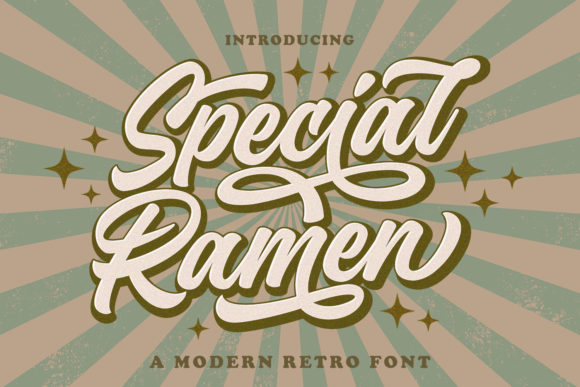
Welcome to the world of typography, where letters dance across the screen, each stroke a brushstroke of elegance. Immerse yourself in the retro charm of Special Ramen, a font inspired by the timeless aesthetic of classic menus. Its bold, sweeping curves evoke the nostalgia of handwritten signs, inviting you on a journey through the past.
Special Ramen is a masterclass in simplicity, combining bold lines with delicate flourishes to create a font that is both eye-catching and legible. Its unpretentious nature makes it perfect for a wide range of projects, from branding and logos to posters and packaging. Unleash your creativity and experience the magic of Special Ramen, a font that will turn your designs into timeless works of art.
With Special Ramen, you'll have access to a diverse range of glyphs and swashes, all meticulously crafted to add depth and character to your designs. The PUA encoding ensures ease of use, allowing you to seamlessly incorporate these elements into your projects. Experiment with different combinations to create unique and visually stunning compositions that will leave a lasting impression.
Step into a world where typography comes alive, where every letter tells a story. Special Ramen is not just a font; it's an experience. Let it transport you back to the golden age of design, a time when simplicity and elegance were the hallmarks of great art. Embrace the timeless beauty of Special Ramen and elevate your designs to new heights of sophistication and charm.